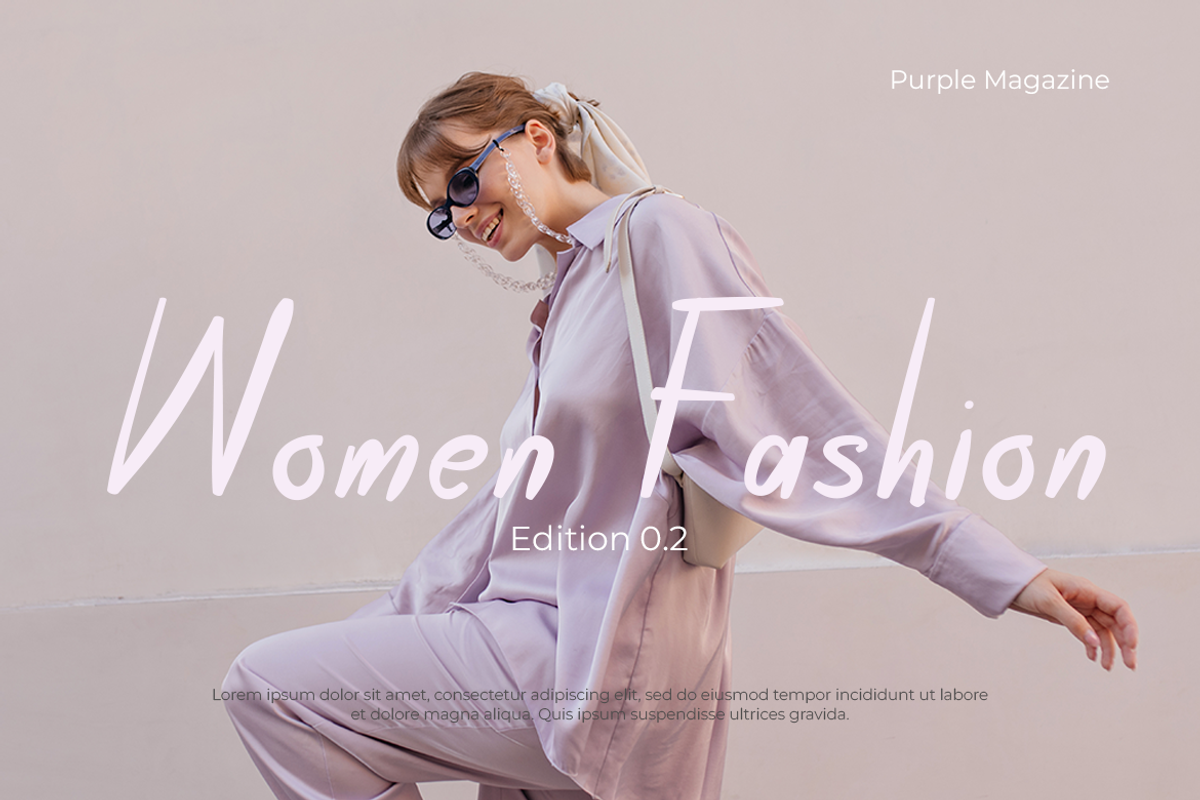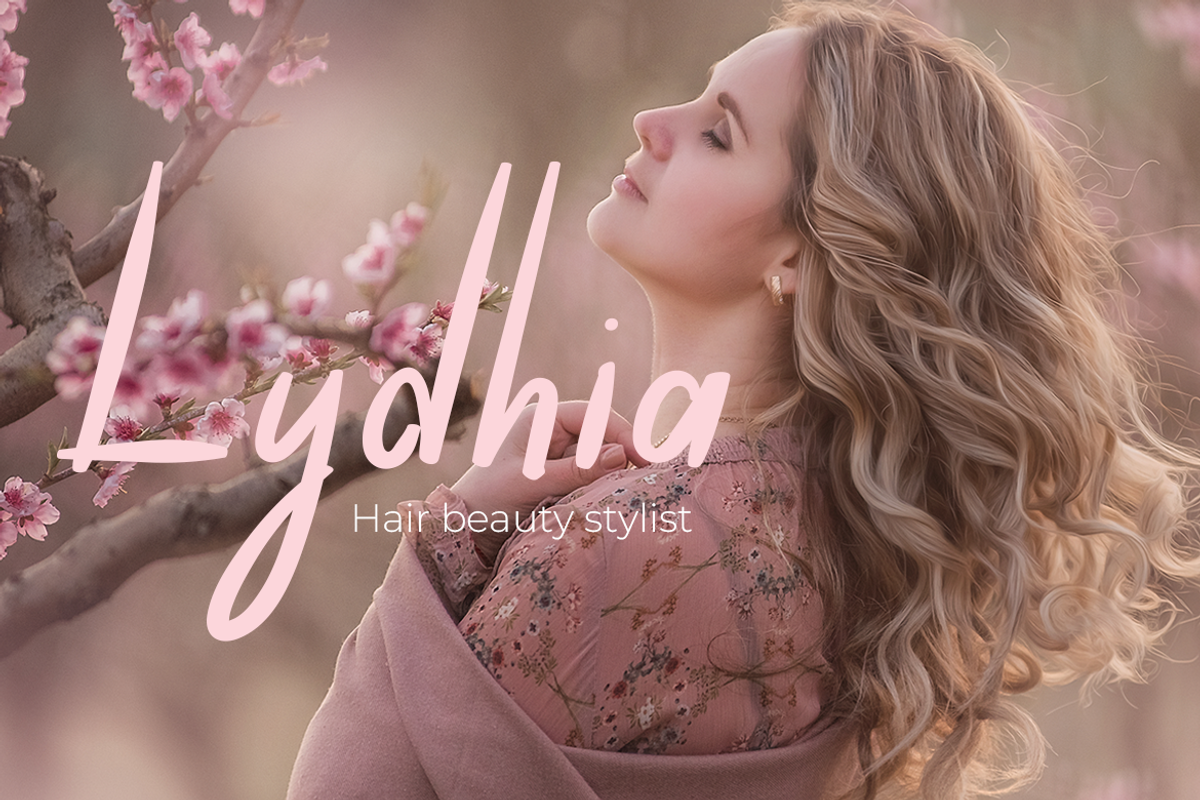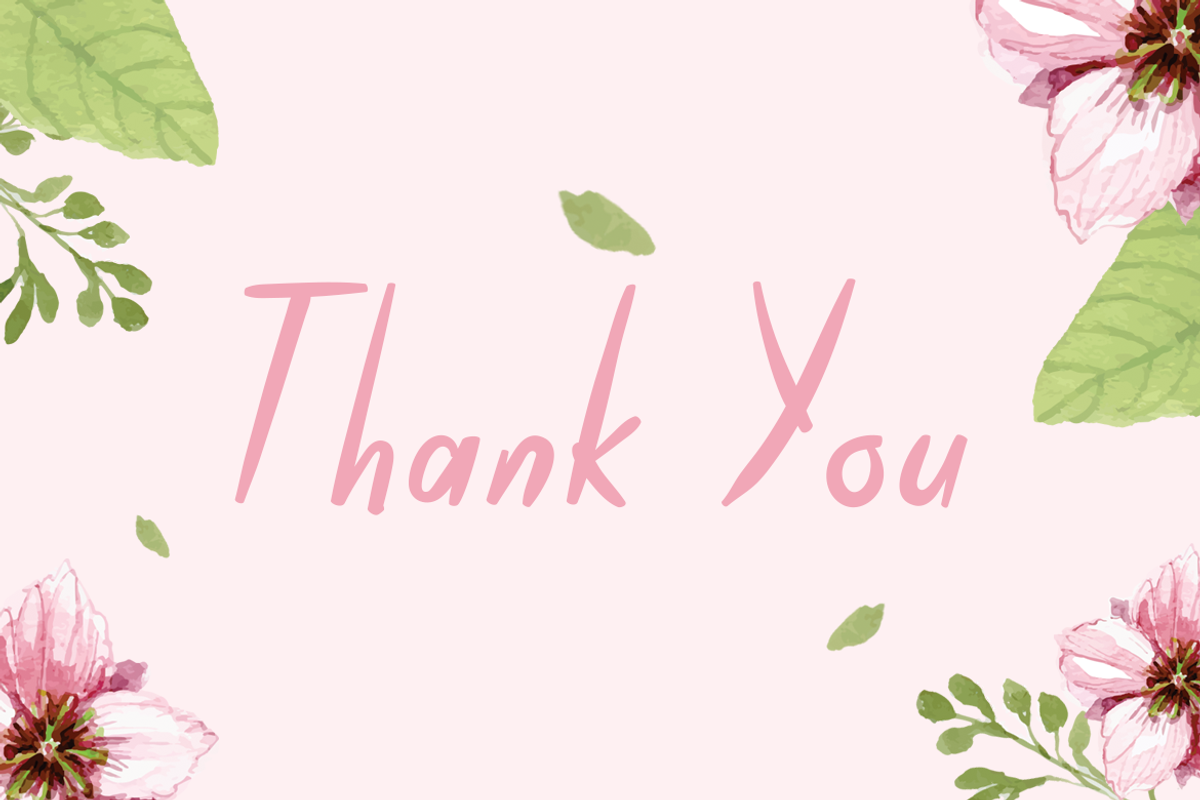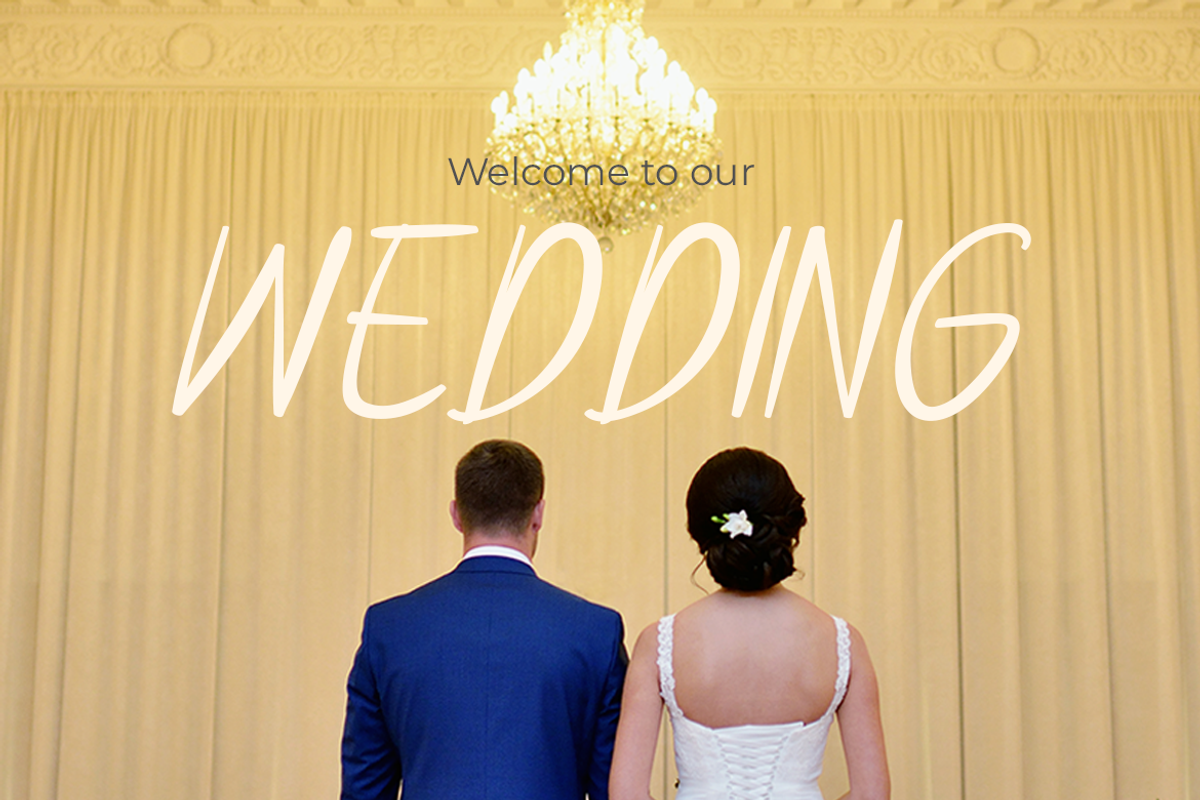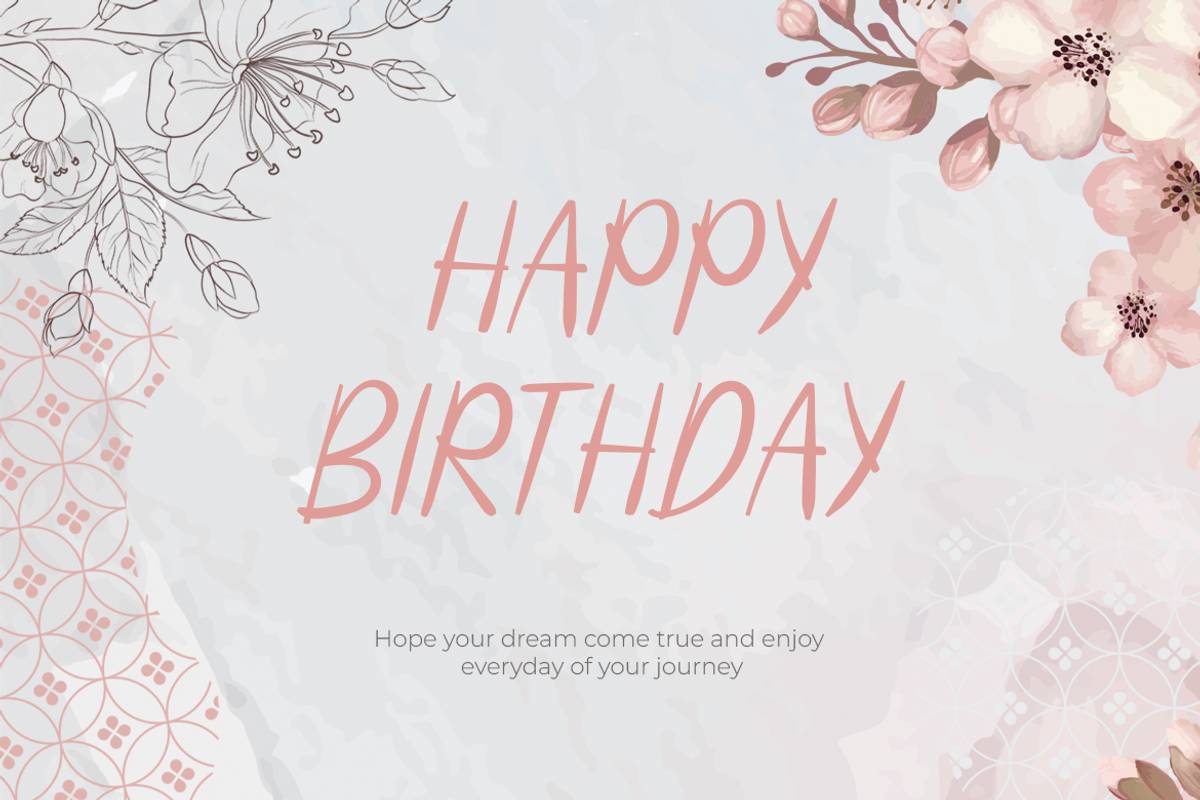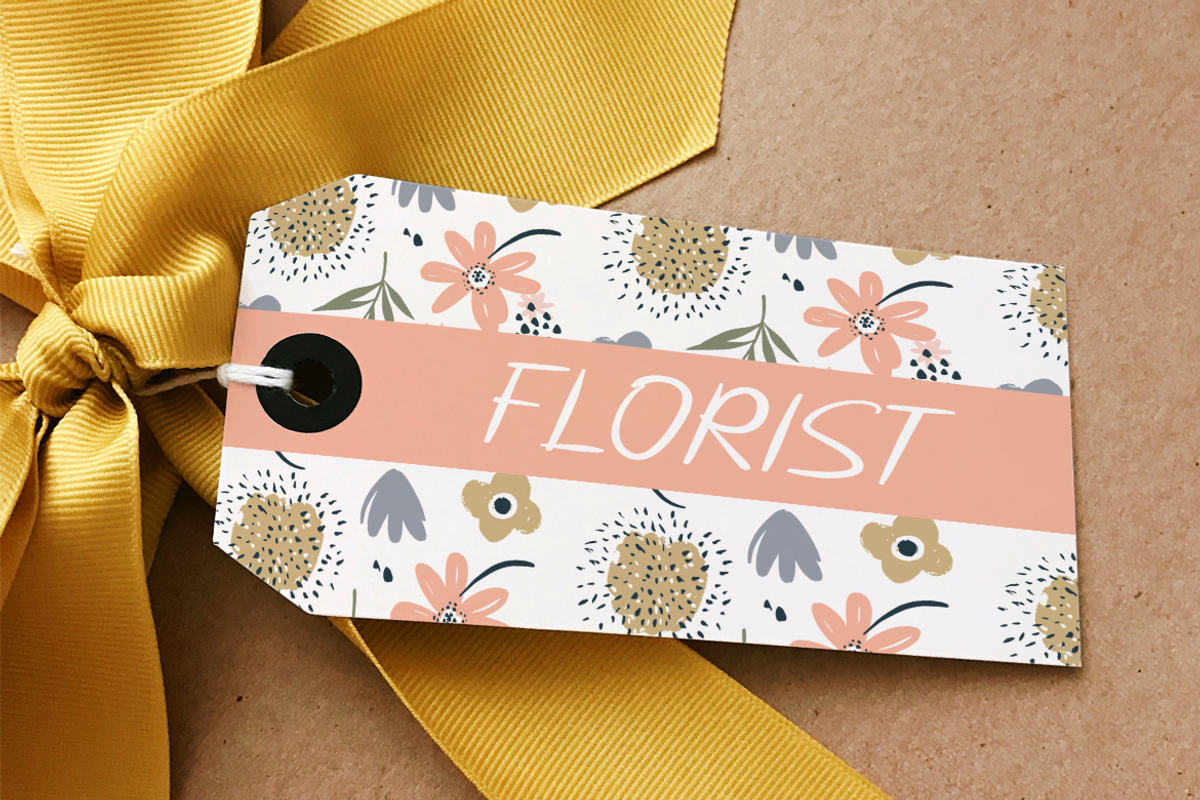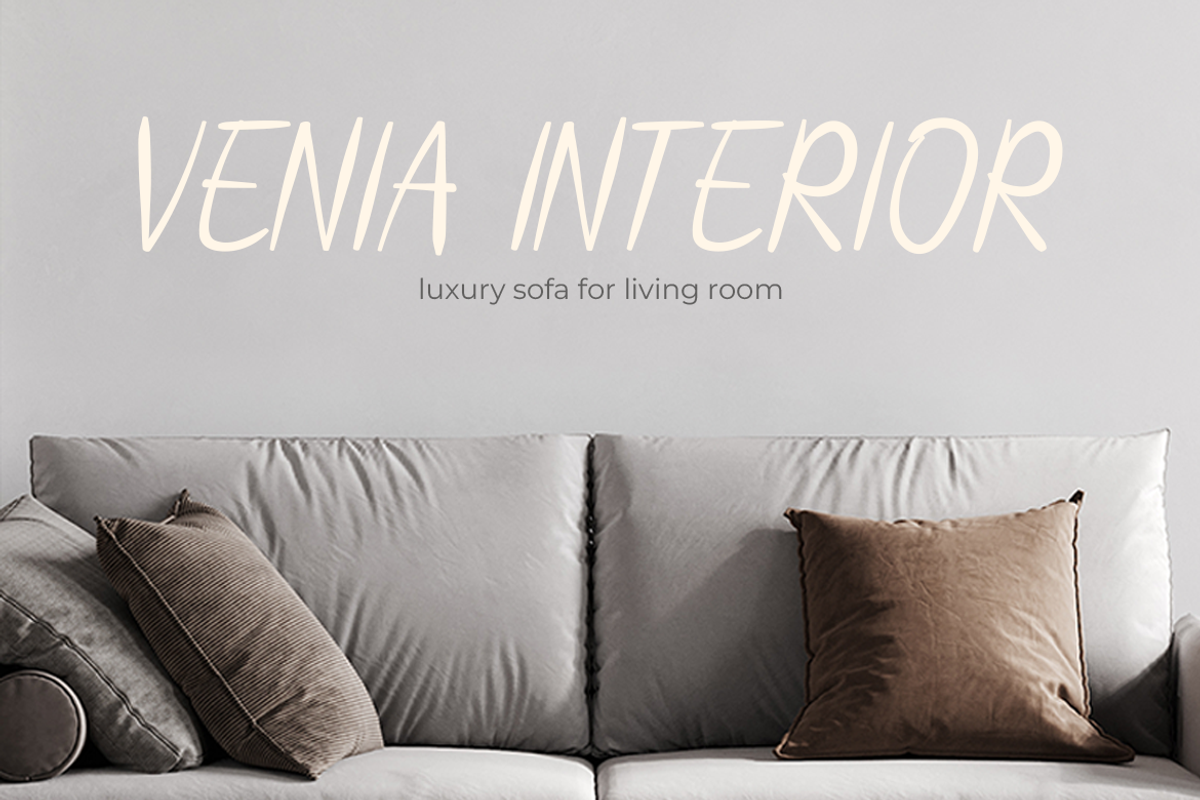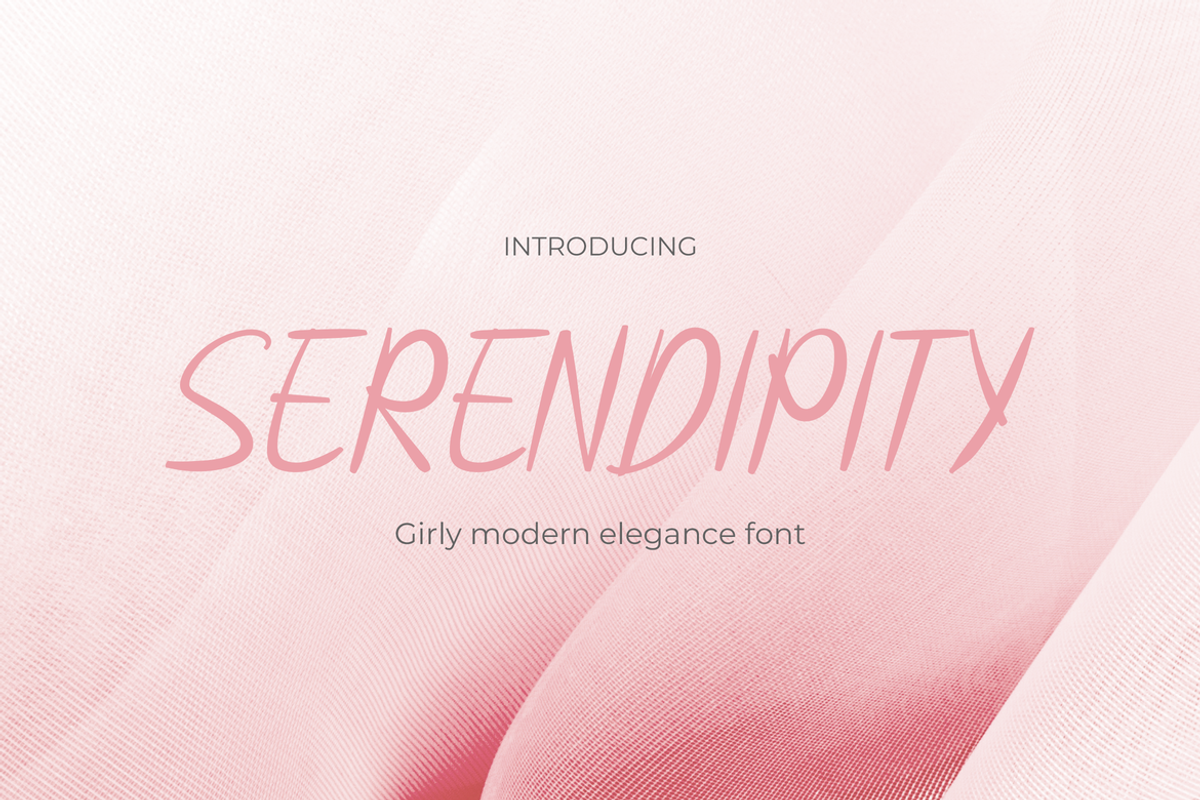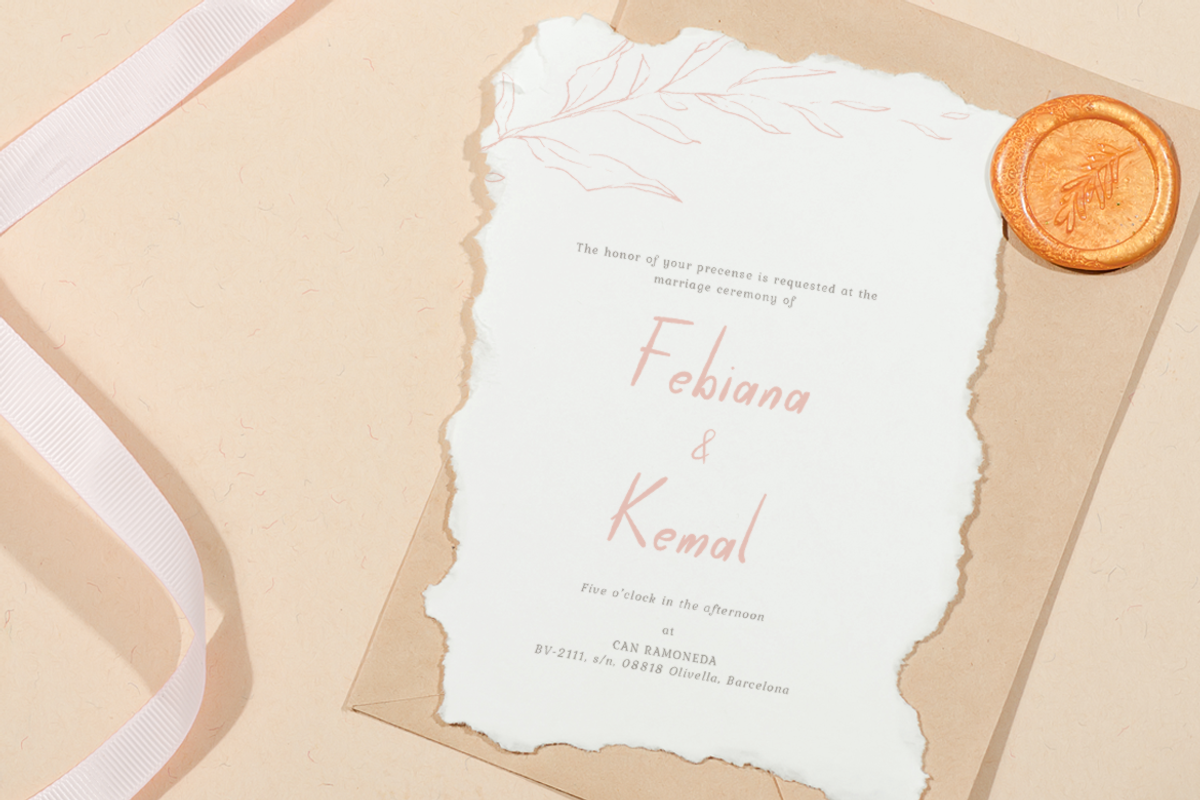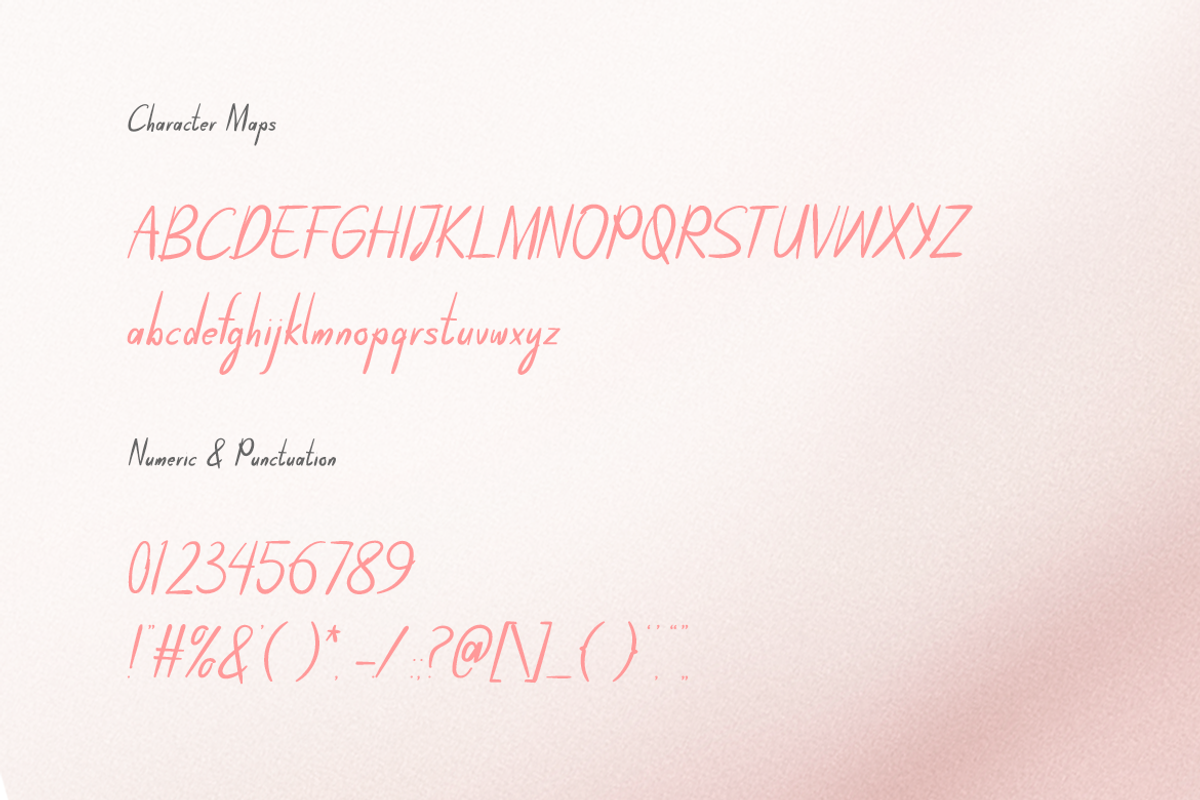
Serendipity
Serendipity Font - Where Romance Meets Modernity
Unlock a world of elegance and charm with Serendipity font. This sans-serif typeface effortlessly blends contemporary design with romantic undertones, making it the perfect choice for greeting cards, wedding invitations, and more. With its clean lines and graceful curves, Serendipity brings a touch of sophistication to every project, ensuring your message is conveyed with timeless allure. Whether you're crafting a heartfelt note or designing a memorable wedding invitation, Serendipity font adds an element of romance that captivates the heart. Explore the magic of Serendipity font today and elevate your designs to new heights of beauty and expression.